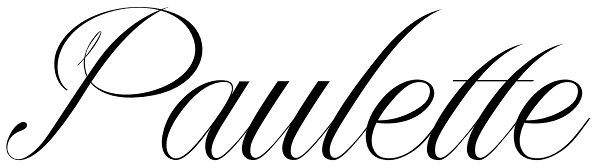
Paulette
Paulette is a script typeface, the capital letters are completely unpublished, some of them have a smile-similar ornament (A,F,O,H,Q,B,C,P,G), whereas minuscule letters are inspired to Edwardian font script. The font is very versatile and is very...
Paulette